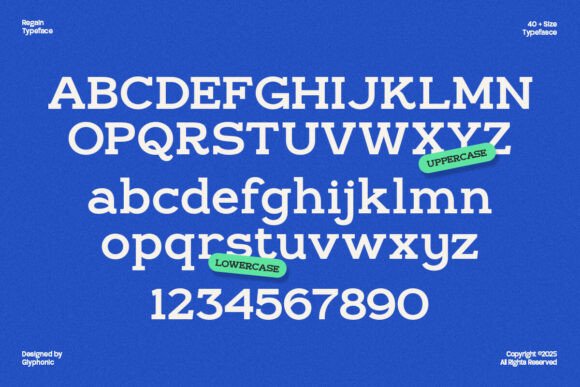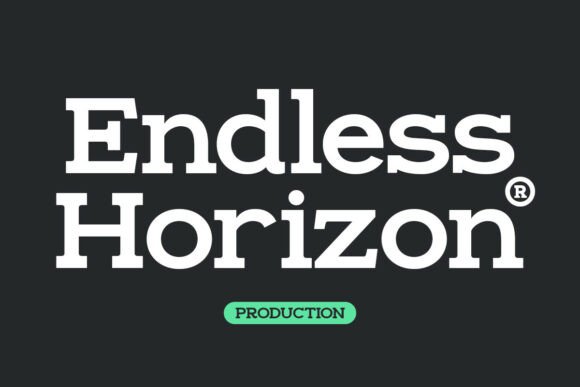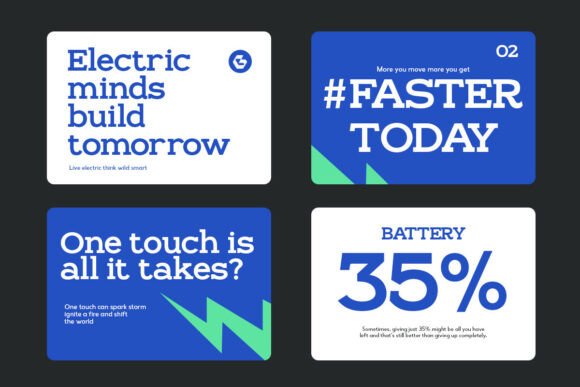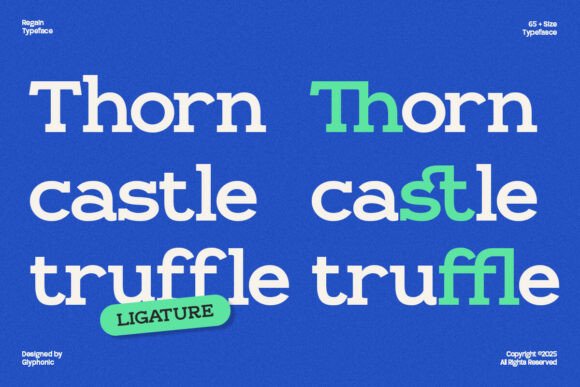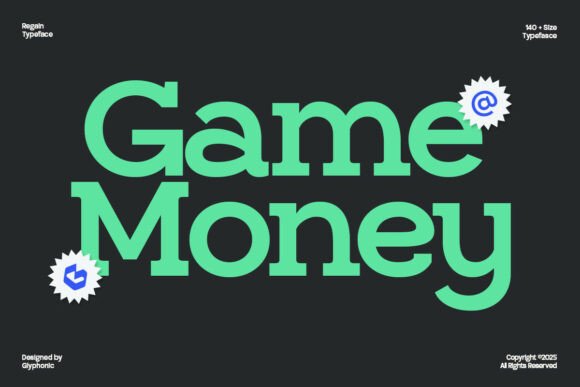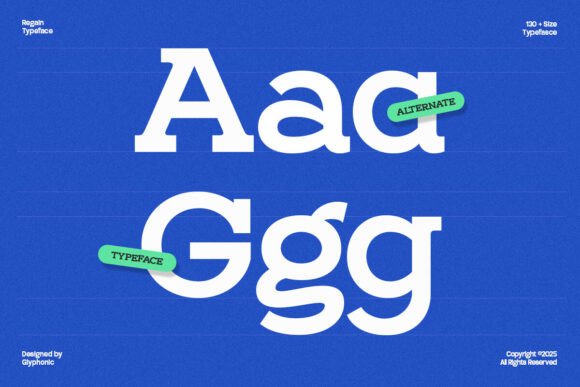
Introduction to Regain Font
Regain is a bold slab serif font that blends vintage strength with modern confidence.
Perfectly suited for headlines, branding, logos, packaging, and editorial layouts, itโs crafted to leave a lasting impression With its thick slab serifs, solid structure, and impactful letterforms, Regain brings personality and a commanding presence to any design.
Key Features of Regain Font